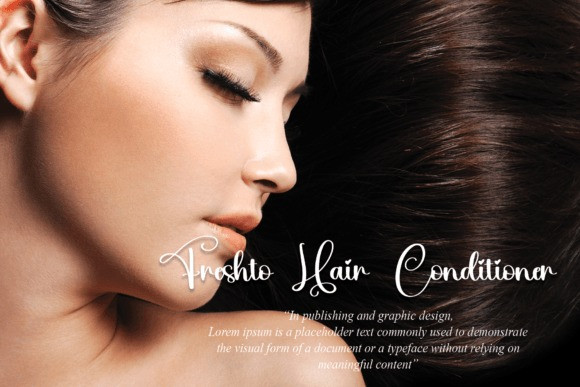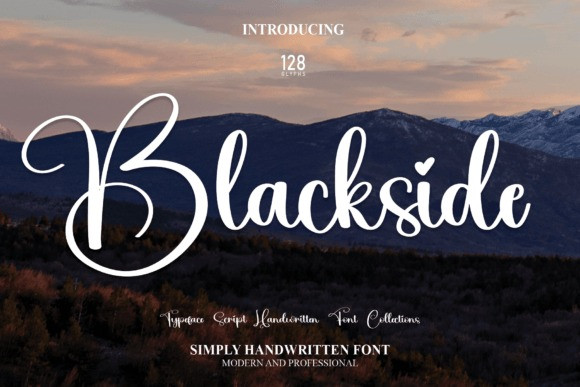
Blackside Calligraphy Font
Blackside Calligraphy Font, latest style letters are perfect for wall displays, wedding invitations, social media post logos, advertisements, product packaging, product designs, labels, photography, watermarks, invitations, stationery, and any project that requires a handwritten taste.